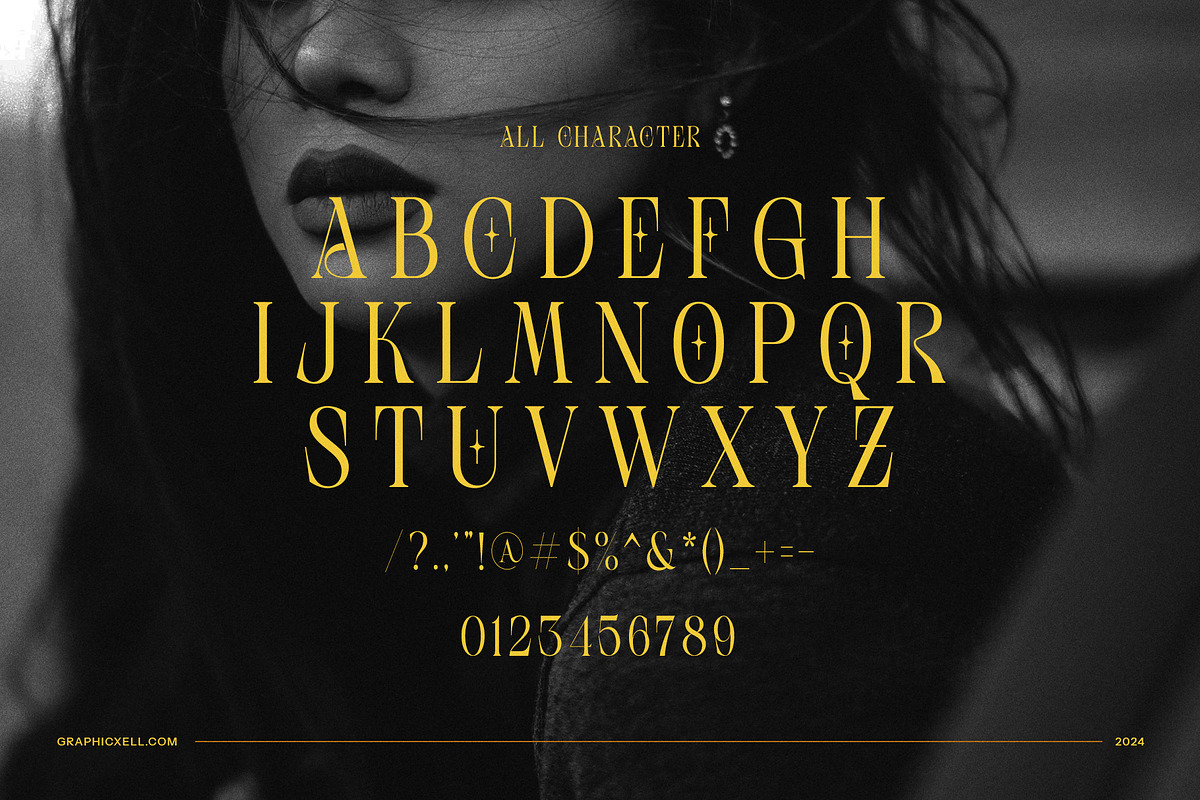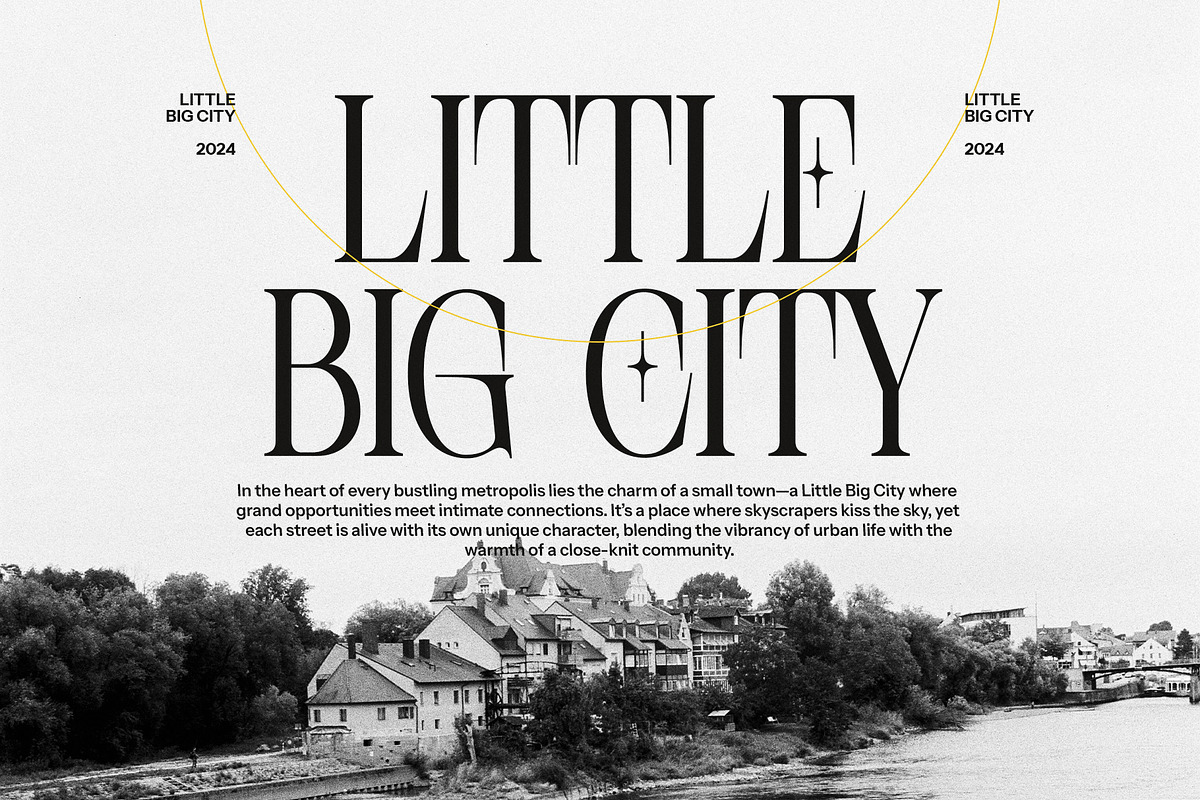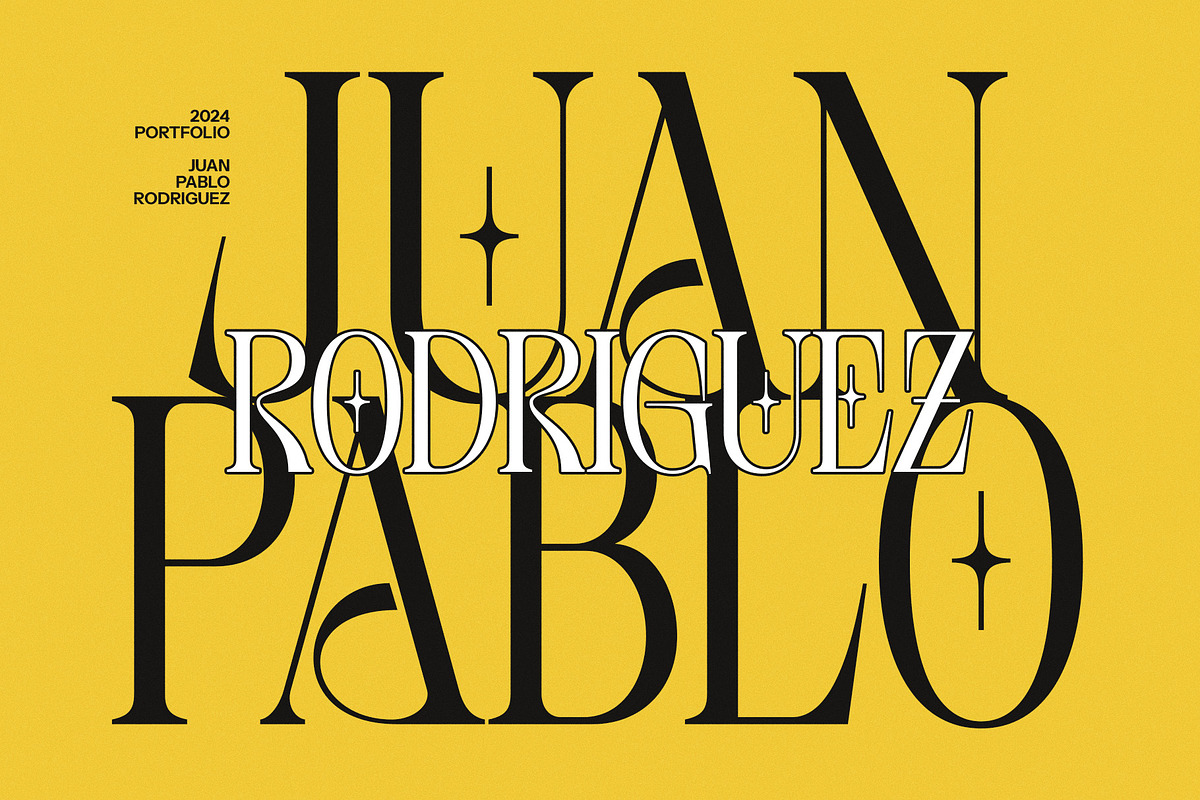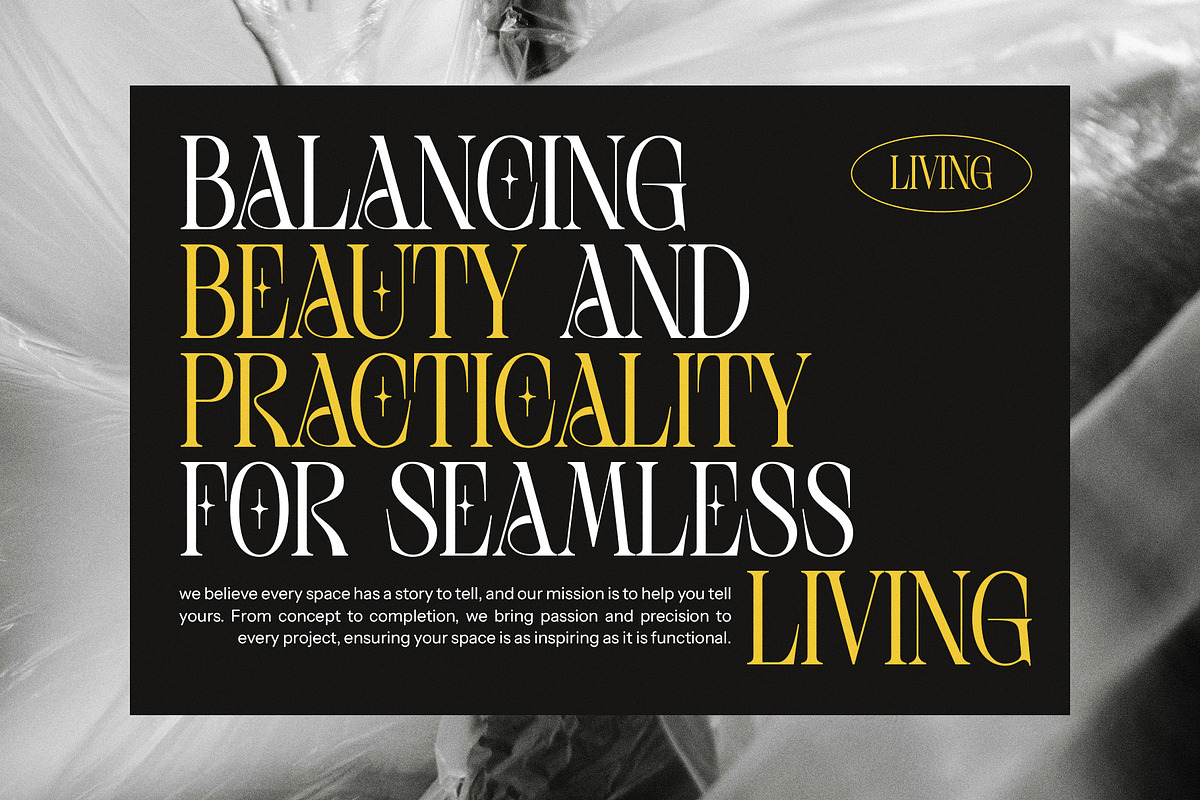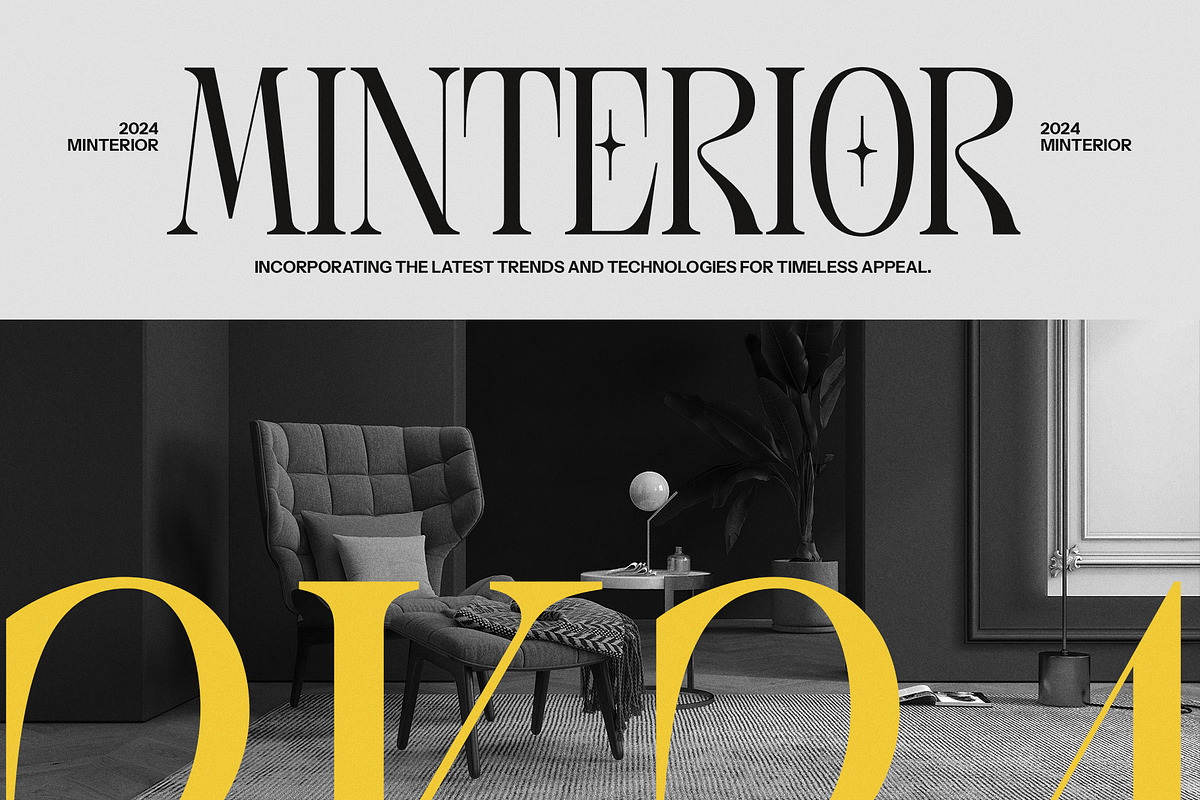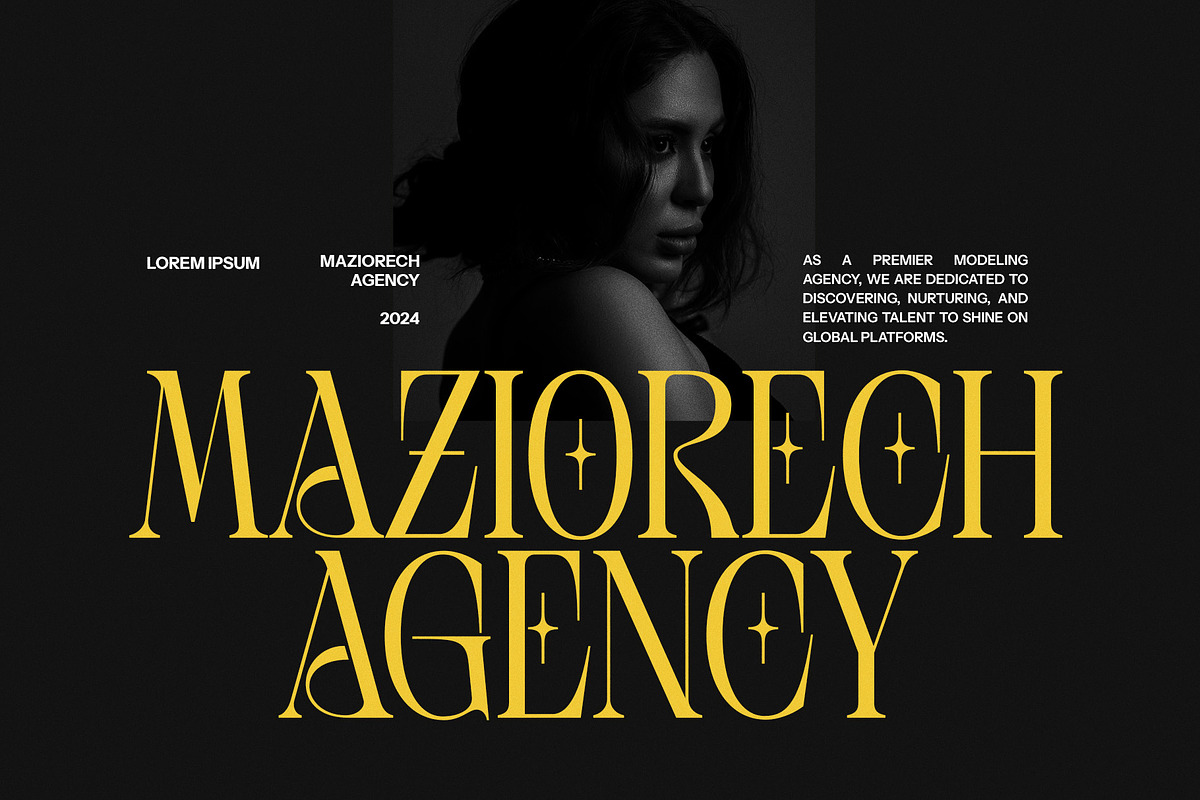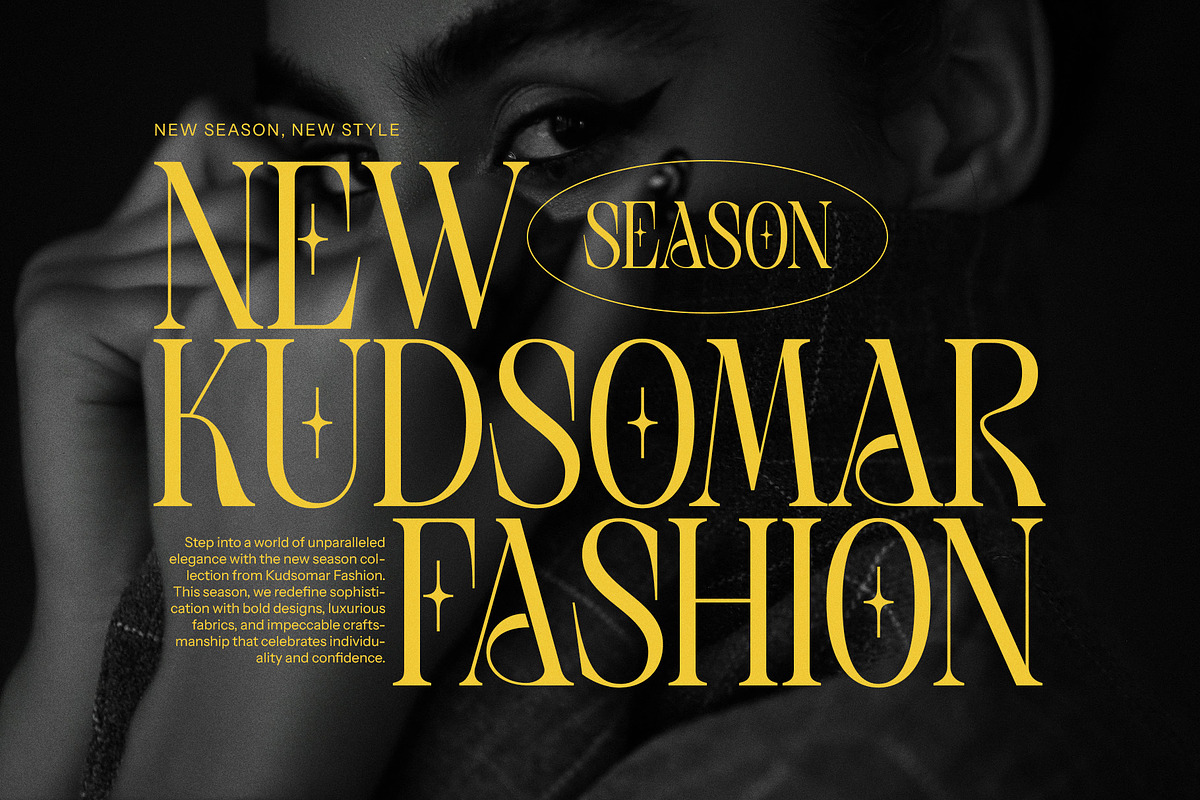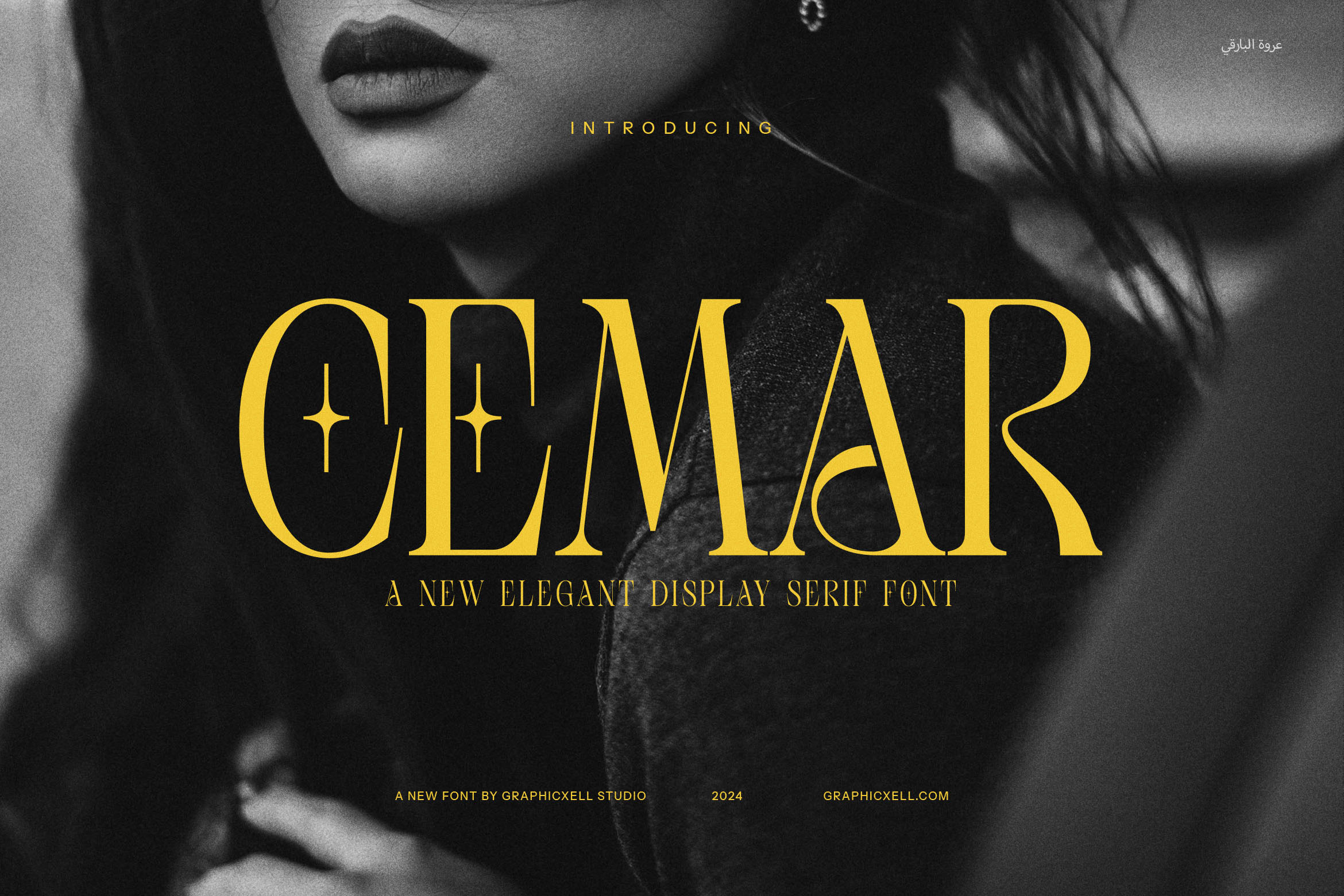
Cemar Elegant Serif Font
Cemar Elegant Serif Font is a truly distinctive typeface that beautifully blends vintage charm with modern sophistication. What sets this font apart is its unique 4-sided star detail, a stunning variation that adds a touch of originality and flair. This beautiful and elegant serif font effortlessly balances timeless design with a creative twist, making it an ideal choice for a wide range of projects that demand both style and sophistication.
Perfect for logos, branding, and advertisements, Cemar adds a luxurious and vintage feel to any design. The elegant serifs and precise letterforms create a refined look, while the unique star element introduces an unexpected yet captivating visual appeal. Whether you’re working on websites, product packaging, magazine layouts, or promotional materials, Cemar brings character and elegance to your designs.
This versatile font is particularly suited for high-end brands, boutique businesses, and creative industries such as food, fashion, and lifestyle. Its vintage-inspired aesthetic makes it an excellent choice for projects that seek to evoke nostalgia, while the modern elegance of the design ensures it remains relevant and fresh.
Cemar Elegant Serif Font is not only beautiful but also highly functional. It is designed for both print and digital use, ensuring clear legibility and visual impact at various sizes. Whether you’re crafting a sophisticated brand identity or designing an eye-catching advertisement, Cemar offers a unique blend of elegance and originality to elevate your creative projects.